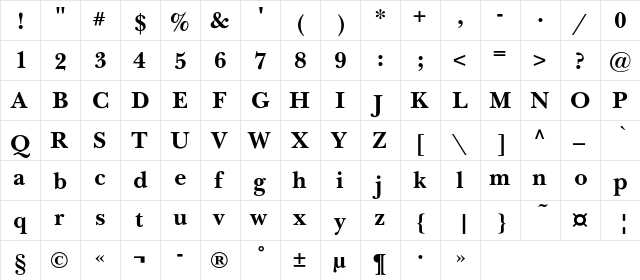
NewBaskervilleC Bold
Design Context for NewBaskervilleC Typeface
NewBaskervilleC offers clean, dependable letterforms without strong stylistic allegiance, making it a practical choice for designers who need flexibility. The heavy weight commands attention and anchors typographic hierarchies.